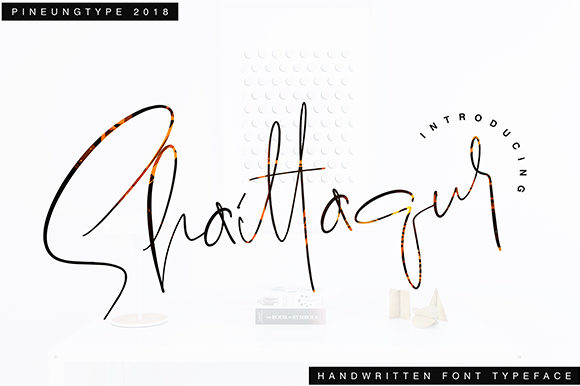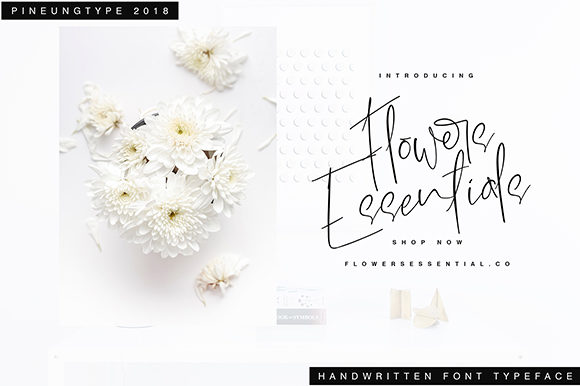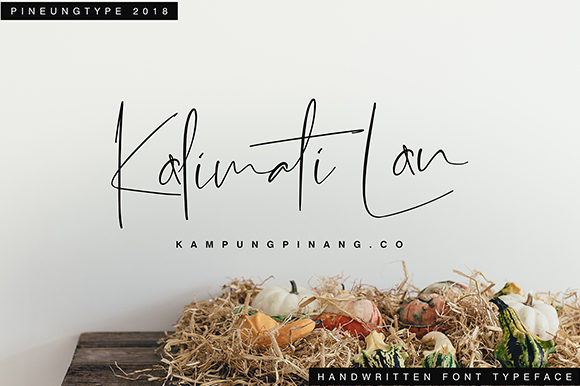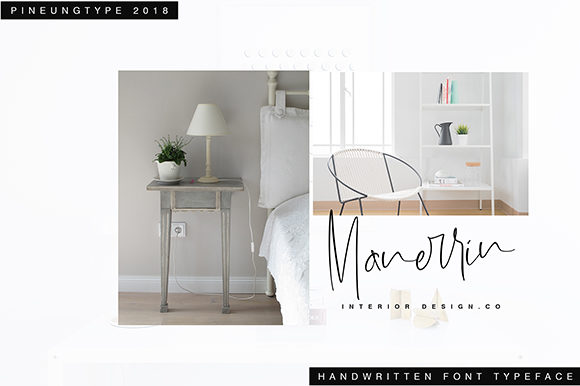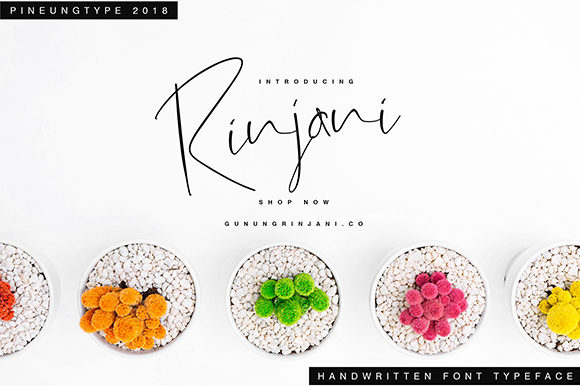
Shaittaqur Font
Shaittaqur is an amazing and bold handwritten font with an incredibly authentic feel. It will turn any design project into a stand out!